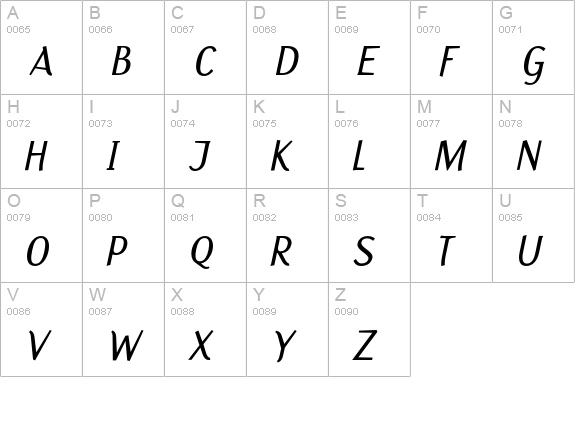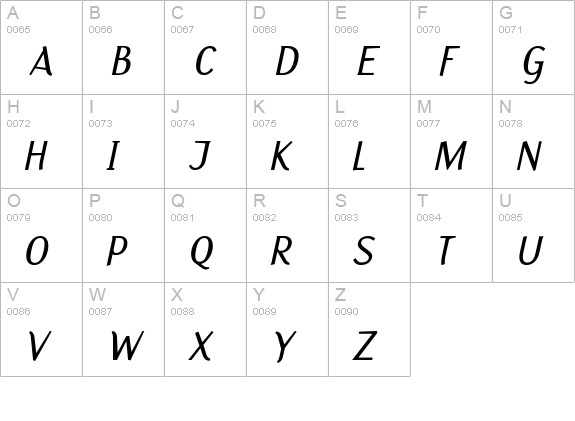
Fasciani-Senza-Italic is a distinctive, italic variant in the Fasciani typeface family \xE2\x80\x94 well suited to design and typography projects.
Fasciani Senza Italic font is a stunning and elegant typeface that exudes sophistication and style. Its sleek lines and graceful curves make it perfect for adding a touch of class to any design project. This versatile font is ideal for a wide range of applications, from elegant invitations to stylish branding. One of the best things about Fasciani Senza Italic font is that it is completely free to download. You can get your hands on this exquisite typeface at FontsMarket.com without having to spend a dime. Whether you're a professional designer or a hobbyist looking to elevate your projects, this font is sure to impress with its timeless and refined aesthetic. Don't miss out on the opportunity to enhance your designs with the beauty of Fasciani Senza Italic font. Download it for free today and add a touch of elegance to your creative projects.